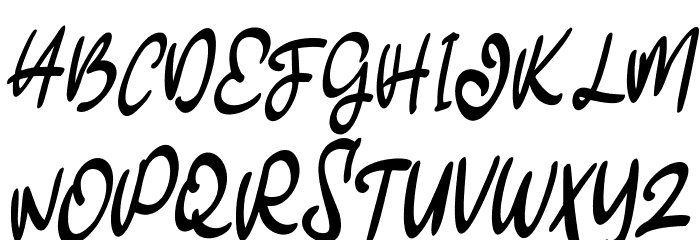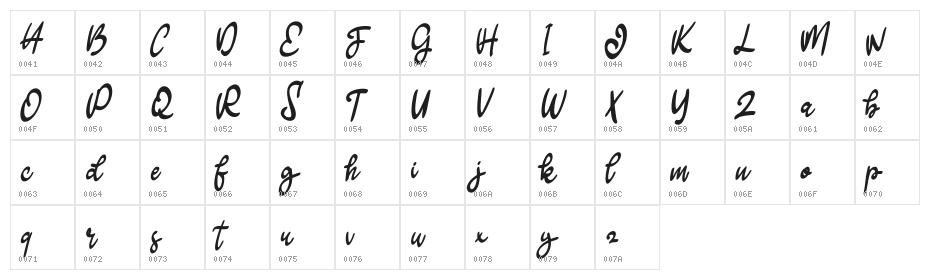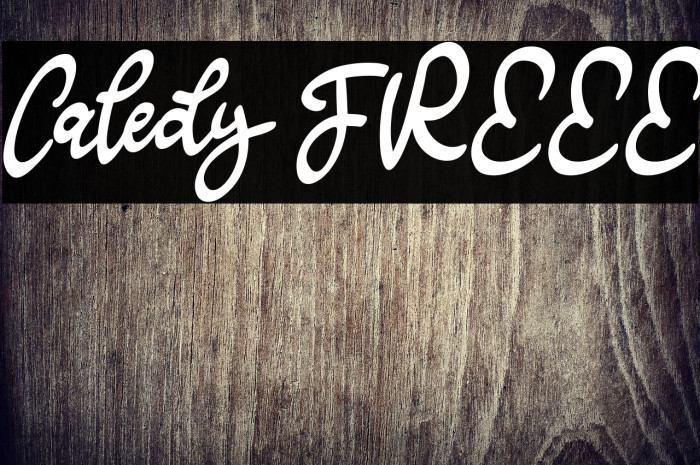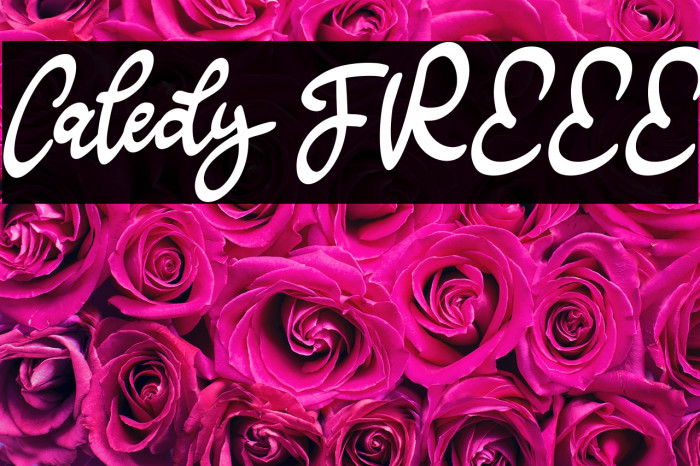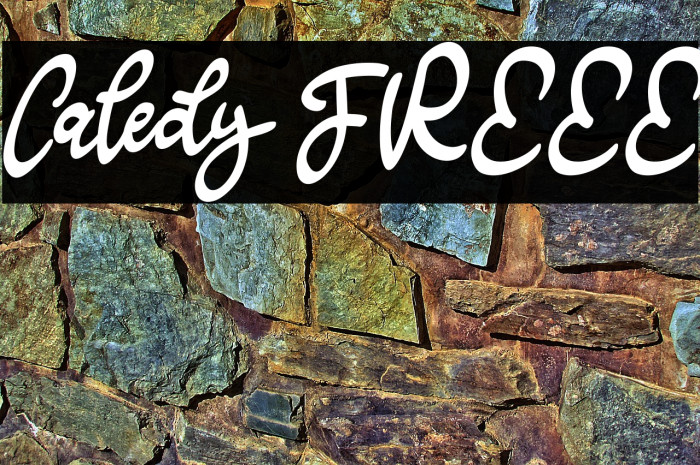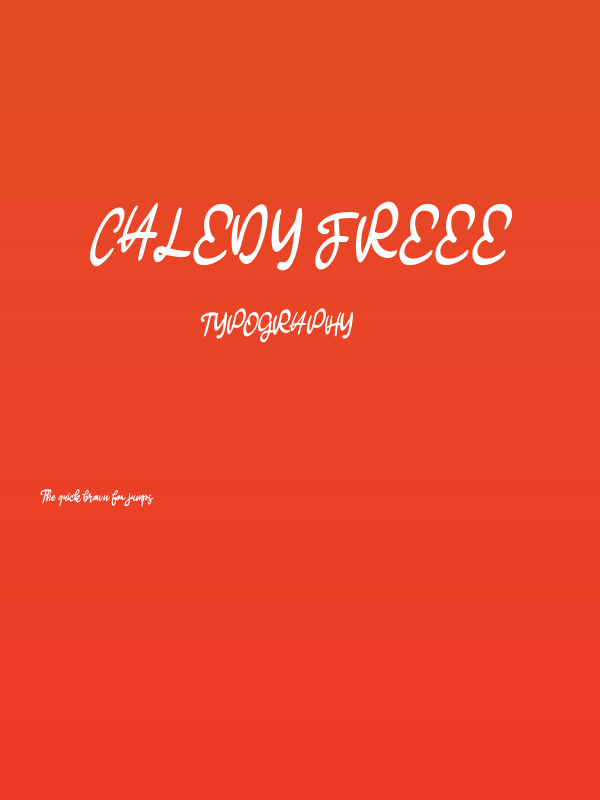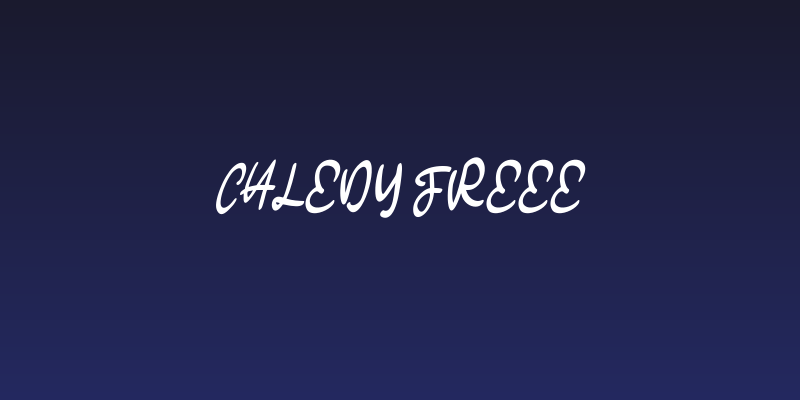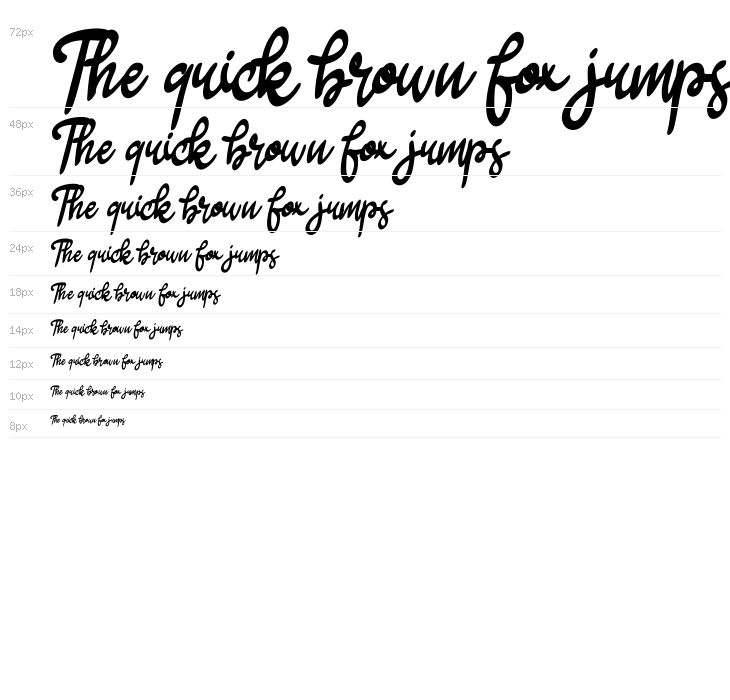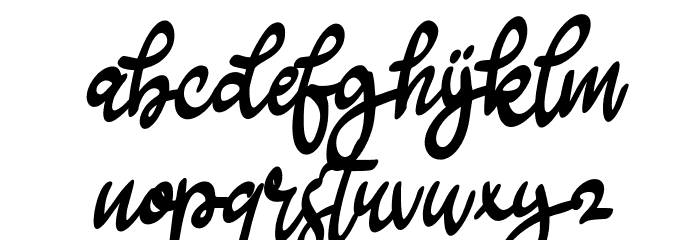
Caledy FREEE Font
Caledy FREEE Description
This font features a bold, flowing script style with a handwritten appearance. The letters are connected, creating a seamless and elegant look. The uppercase characters are slightly larger and more pronounced, while the lowercase letters maintain a consistent flow. The font has a playful yet sophisticated feel, making it suitable for a variety of creative projects. The strokes are thick and consistent, providing a strong visual impact. This font is ideal for designs that require a personal touch, such as invitations, greeting cards, and branding materials.
| Proposed Projects | Ideal for invitations, greeting cards, branding, and creative projects requiring a personal touch. |